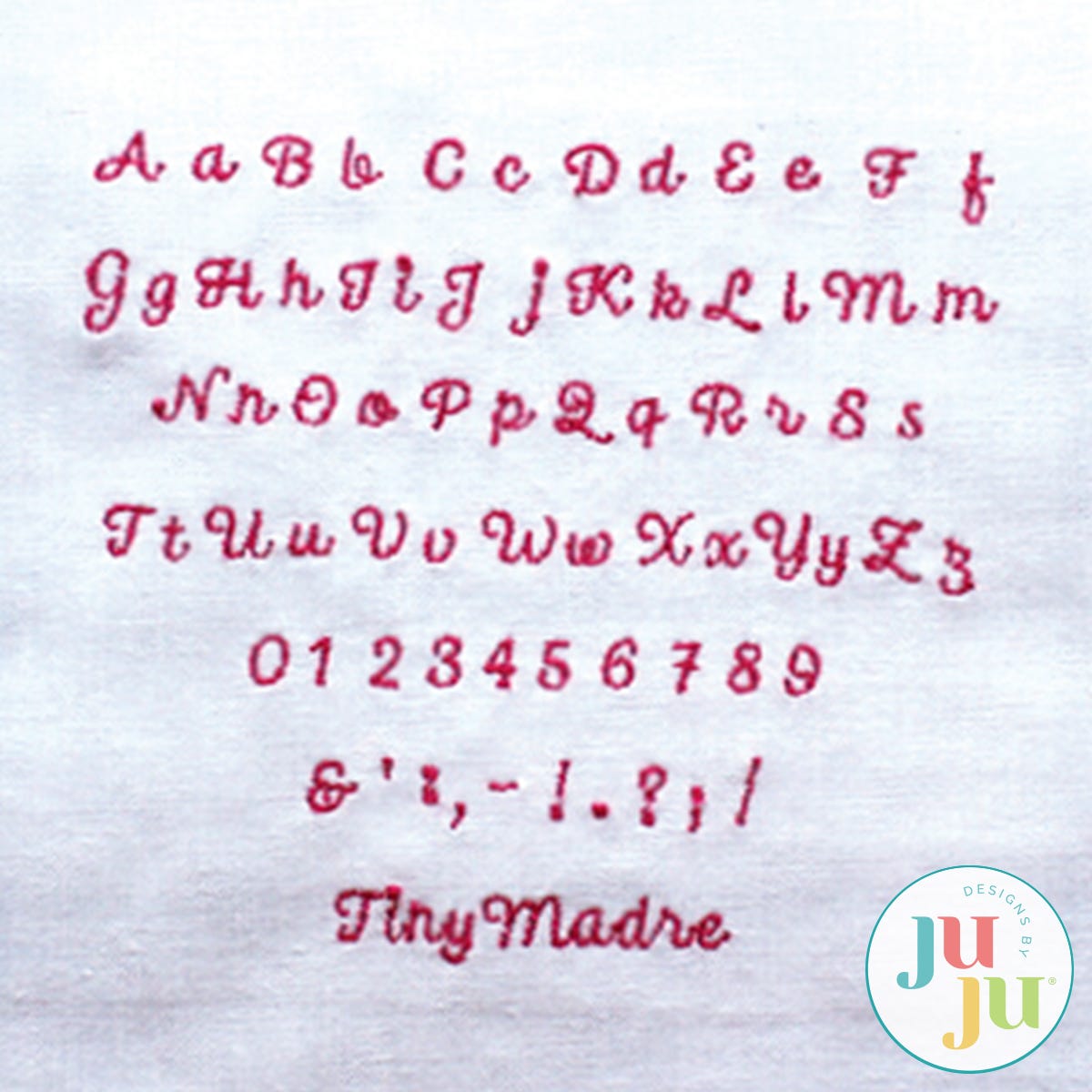
Madre Satin Stitch Embroidery Font by Oma's Place
This very legible font stitches out very smoothly. Each letter starts on the left and ends on the right. It's perfect for personalizing your projects. Comes in 9 machine formats, plus the Bx format for Embrilliance users.